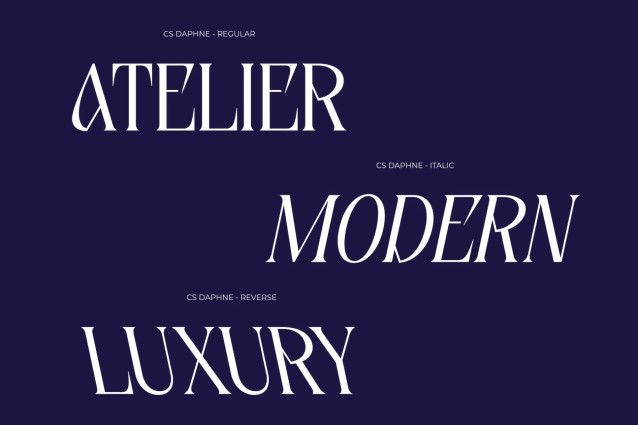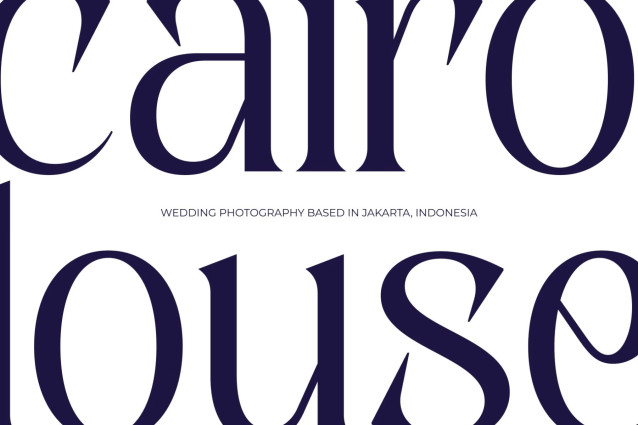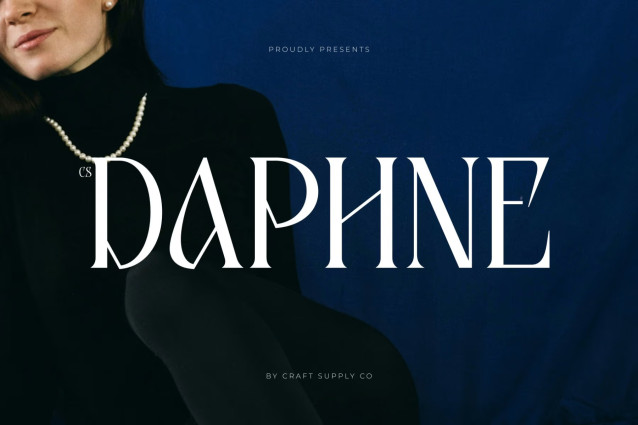
CS Daphne – Contemporary Font
CS Daphne – Modern Serif with Fresh Contemporary Style
Modern Serif with Cool Contemporary Character
This is a modern serif font designed to blend timeless elegance with a fresh contemporary attitude. Featuring refined proportions and clean modern details, this typeface creates a stylish visual presence that feels sophisticated, cool, and highly versatile. It is crafted for designers who want typography that appears elegant while maintaining a modern and creative edge.
Refined Shapes with Fresh Appeal
The letterforms of this font are carefully designed to balance classic serif beauty with contemporary simplicity. Smooth curves and clean structure create a harmonious rhythm that enhances readability while giving the font a polished and modern appearance. This refined construction allows the typeface to feel both fashionable and approachable.